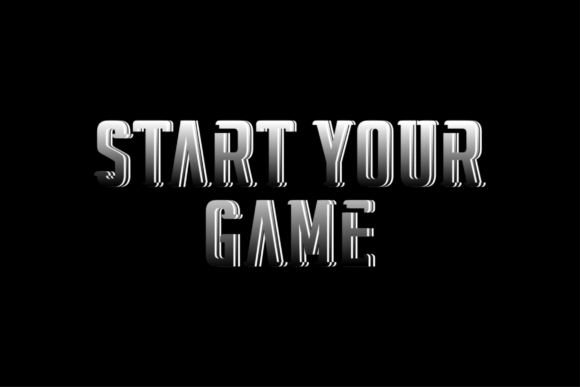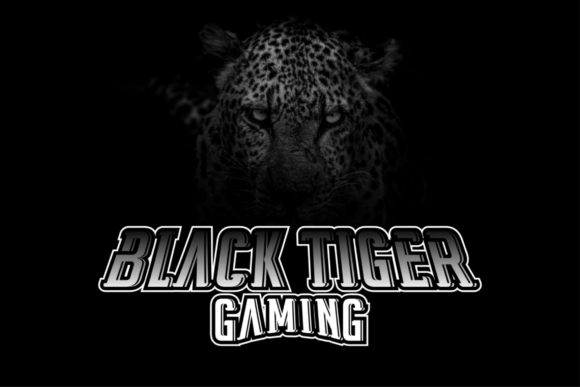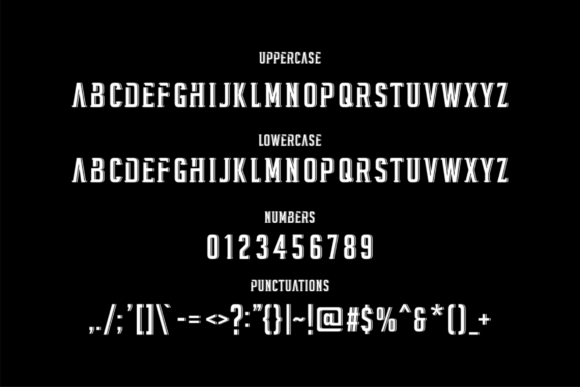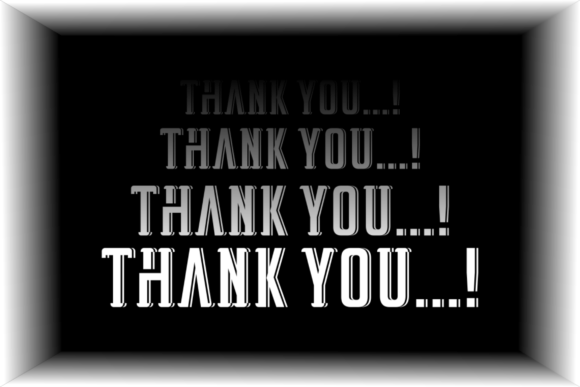
Biliboad Font
BILIBOAD FONT SPECIMEN
Biliboad is a modern, bold, and authentic slab serif font suitable for any branding project like logo, t-shirt printing, export, and many more. It looks outstanding in a wide range of contexts.